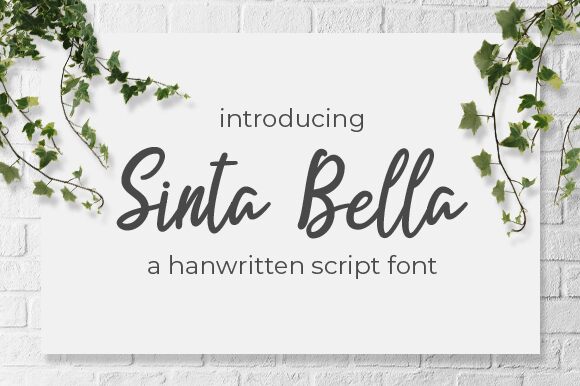
Sinta Bella
Meet Sinta Bella, the charming handwritten font designed by Graphix Line Studio. Its semi-light weight and semi-condensed width make it a versatile choice for various projects, from wedding invitations to social media graphics. This font's playful and organic style adds a touch of whimsy to any design, making it perfect for children's book covers or branding for artisanal products. The effortless flow of Sinta Bella gives your text an elegant yet approachable feel, ideal for creating a friendly atmosphere in menus or greeting cards. Bring your designs to life with the unique character of Sinta Bella.